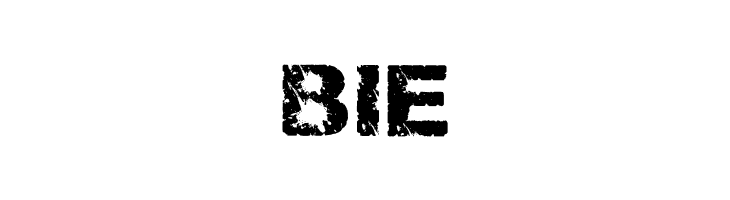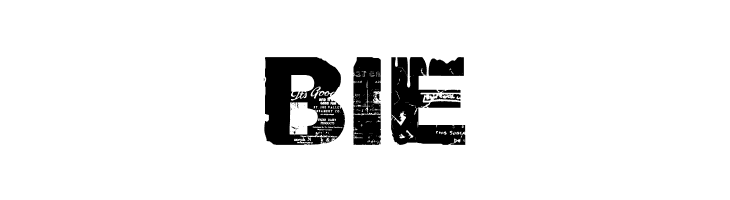
A playful, decorative font with circus-inspired embellishments.
A bold, distressed font with a grunge aesthetic, perfect for edgy designs.
A bold, decorative font with whimsical, swirling embellishments.
A bold slab serif font with strong, block-like serifs and a robust design.
A playful, decorative font with bold characters enclosed in circles.
A mosaic-inspired decorative font with a textured, artistic appearance.
A bold, vintage-inspired font with tightly spaced, heavy strokes.
A bold, distressed font with a rugged, grunge aesthetic.
A bold, distressed font with a grunge aesthetic, featuring unique textures and edgy details.
A distressed, grunge-style font with a textured, rugged appearance.